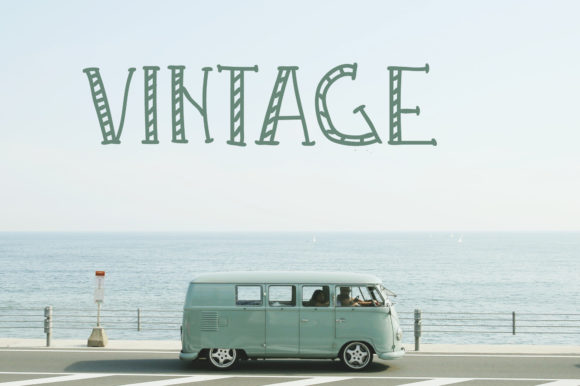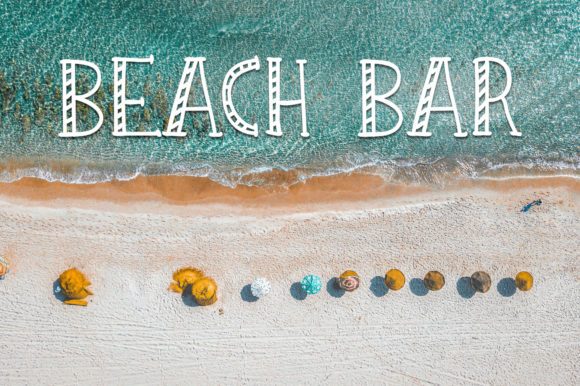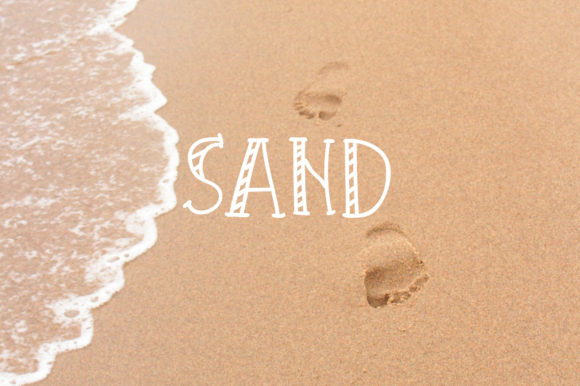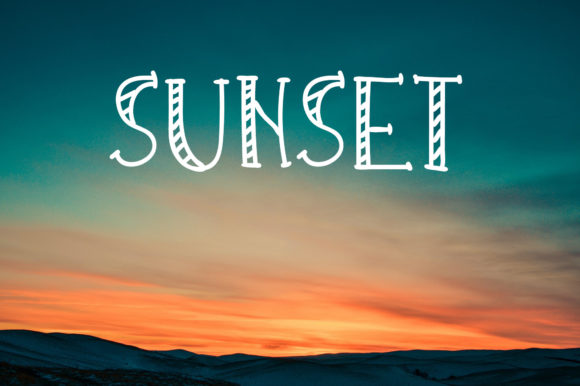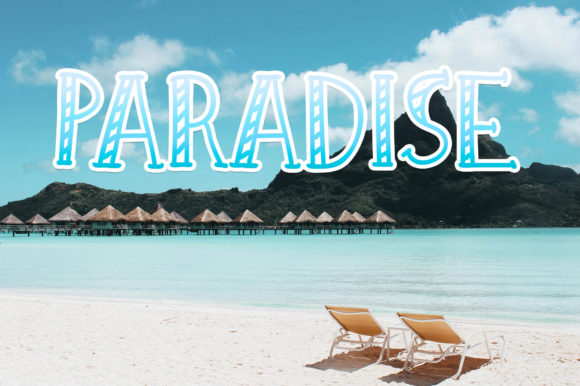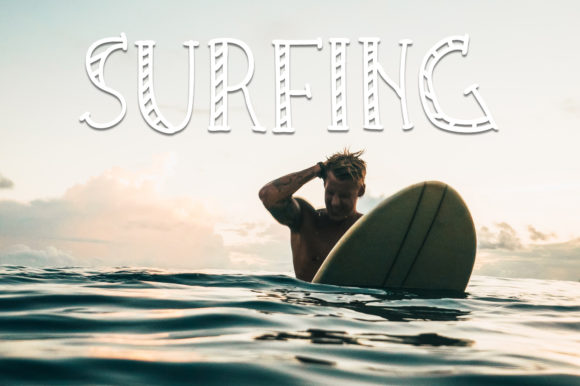
Discover the Perfect Harmony of Design with Bar Beach Font
There’s something magical about the moment when a design idea clicks, and everything falls into place. You’re brainstorming for hours, and then, suddenly, a spark of creativity ignites, and you know exactly what you want to create. For designers, this feeling is a treasure to behold, and it’s often the result of having the right tools at their disposal. That’s where Bar Beach Font comes in – a cool and simple display font that’s perfect for adding a touch of elegance to your next project.
Whether you’re working on a poster, flyer, or print, Bar Beach Font is a valuable addition to your design arsenal. Its clean lines and minimalist aesthetic make it an ideal choice for designers who want to create visually stunning pieces without the fuss. With Bar Beach Font, the possibilities are endless, and the results are sure to impress.
Bar Beach Font Key Features
- Unique Characteristics: The font features a unique, hand-drawn aesthetic with subtle texture and imperfections, giving it a distinctive look.
- Kerning and Ligatures: Includes carefully crafted kerning and ligatures to ensure smooth text flow and optimal readability.
Bar Beach Font Review
Overall, I think the Bar Beach Font is a beautiful addition to any design project. The unique blend of modern and tropical elements ✨ really captures the essence of a beachy vibe.
The font’s versatility is a major plus, making it suitable for a wide range of applications, from restaurant menus to travel brochures. The font’s clean lines and minimalistic aesthetic ✨ also make it a great choice for websites and digital platforms.
However, I do have a few concerns about the font’s limitations ⚠️. For one, the font may be too generic for some designers, lacking a distinct personality. Additionally, the font’s tropical theme may not be suitable for all projects, particularly those that require a more formal or professional tone.
Another issue I’ve noticed is that the font’s font weight range is relatively limited ⚠️, which can make it difficult to create emphasis or hierarchy in certain designs. Finally, the font’s kerning can be a bit off in certain combinations of letters, which may affect readability.
Overall, I think the Bar Beach Font is a solid choice for designers looking for a unique and beachy vibe, but it may not be the best fit for every project. With a bit more attention to detail and expansion of its font weight range, this font could be truly exceptional.
Key Takeaways
- Beautiful blend of modern and tropical elements
- Versatile and suitable for a wide range of applications
- Clean lines and minimalistic aesthetic
- Limited font weight range
- Kerning issues in certain letter combinations
Bar Beach Font is ideal for creating beach-themed designs, such as beach party invitations, surfboard graphics, or coastal branding materials.
Use it to create eye-catching headings, titles, or body text that evoke a sense of relaxation and fun.
Experiment with different font sizes, colors, and styles to create a unique and personalized look.